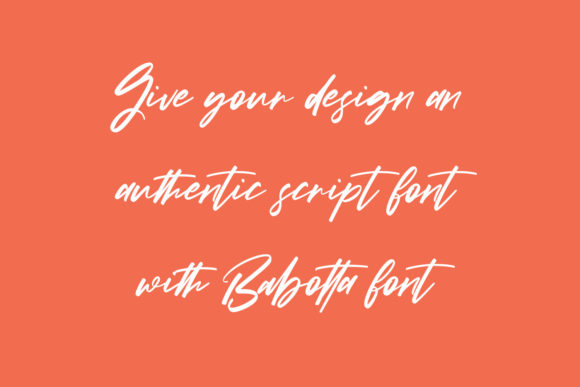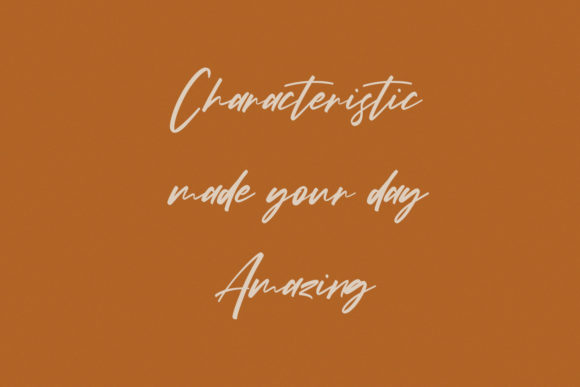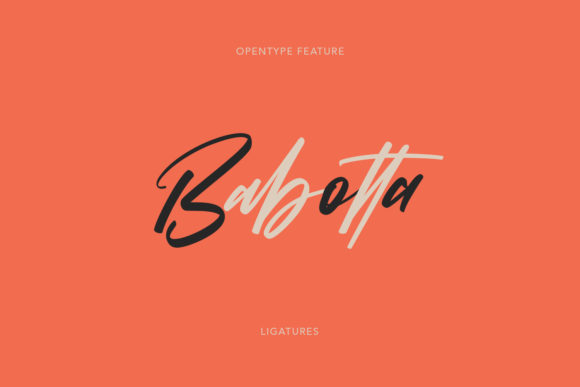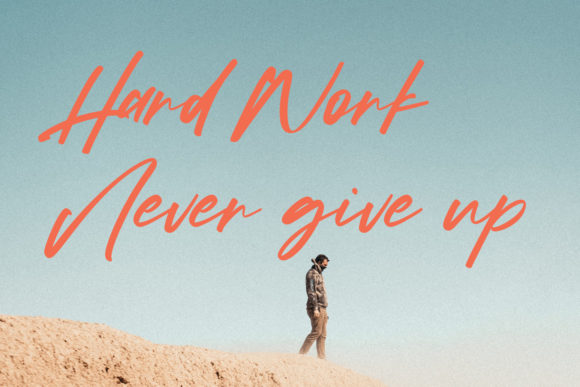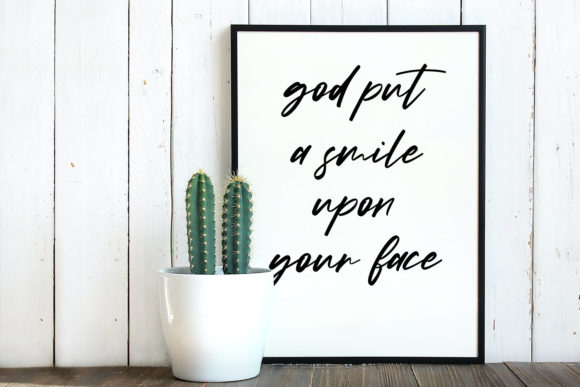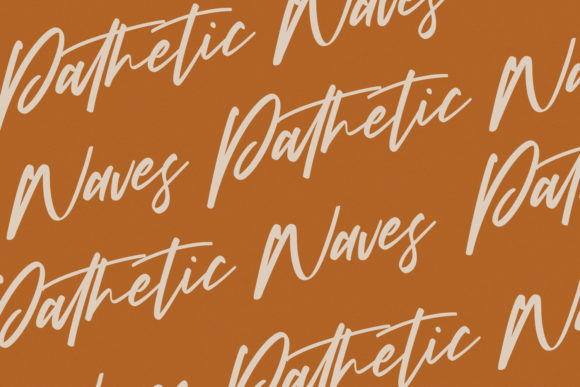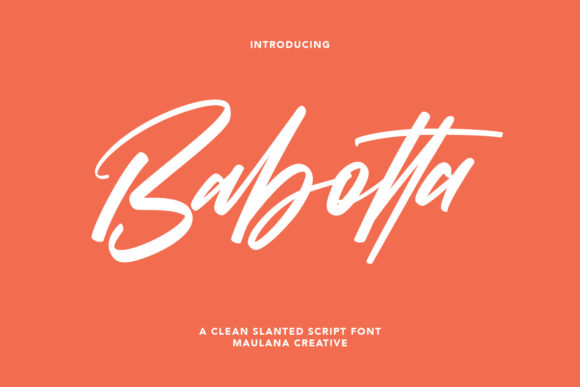
Babotta Font: The Ultimate Clean and Modern Script Font for Designers and Crafters
In the world of typography, fonts play a crucial role in conveying the tone and personality of a brand or project. For designers and crafters looking for a clean and modern script font that can elevate their work, Babotta Font is an excellent choice. In this article, we’ll dive into the features and benefits of Babotta Font, and explore how it can be used in various design projects.
What is Babotta Font?
Babotta Font is a clean and modern script font designed to add a touch of elegance and sophistication to any design project. Its smooth lines, flowing curves, and balanced letterforms make it perfect for a wide range of applications, from logos and branding to social media graphics and crafty DIY projects.
Key Features of Babotta Font
- Clean and Modern Design: Babotta Font boasts a clean and modern design that is both visually appealing and highly legible.
- Script Style: The font features a beautiful script style that adds a touch of elegance and sophistication to any design.
- Highly Versatile: Babotta Font is highly versatile and can be used in a wide range of design projects, from logos and branding to social media graphics and crafty DIY projects.
- Easily Readable: The font is designed to be easily readable, making it perfect for use in body text, headings, and titles.
Benefits of Using Babotta Font
So, why should designers and crafters choose Babotta Font for their projects? Here are just a few benefits of using this amazing font:
- Instant Professional Look: With Babotta Font, you can instantly give your design projects a professional look that will impress your audience.
- Easily Customizable: The font is easily customizable, allowing you to adjust the letterforms, spacing, and other elements to fit your design needs.
- Time-Saving: Using Babotta Font can save you time and effort in the design process, as you can quickly and easily create professional-looking designs.
Using Babotta Font in Design Projects
So, how can you use Babotta Font in your design projects? Here are a few ideas to get you started:
- Logos and Branding: Use Babotta Font to create a beautiful and professional logo that will help establish your brand identity.
- Social Media Graphics: The font is perfect for creating social media graphics, such as Facebook posts, Instagram stories, and Twitter headers.
- Crafty DIY Projects: Babotta Font is also great for crafty DIY projects, such as making signs, banners, and other handmade items.
- Web Design: The font can be used in web design to create beautiful and professional-looking headings, titles, and body text.
In conclusion, Babotta Font is a clean and modern script font that is perfect for designers and crafters looking to add a touch of elegance and sophistication to their design projects. With its highly versatile design, easily readable letterforms, and cross-platform compatibility, Babotta Font is an excellent choice for a wide range of applications. Whether you’re creating logos and branding, social media graphics, crafty DIY projects, or web designs, Babotta Font is sure to impress.